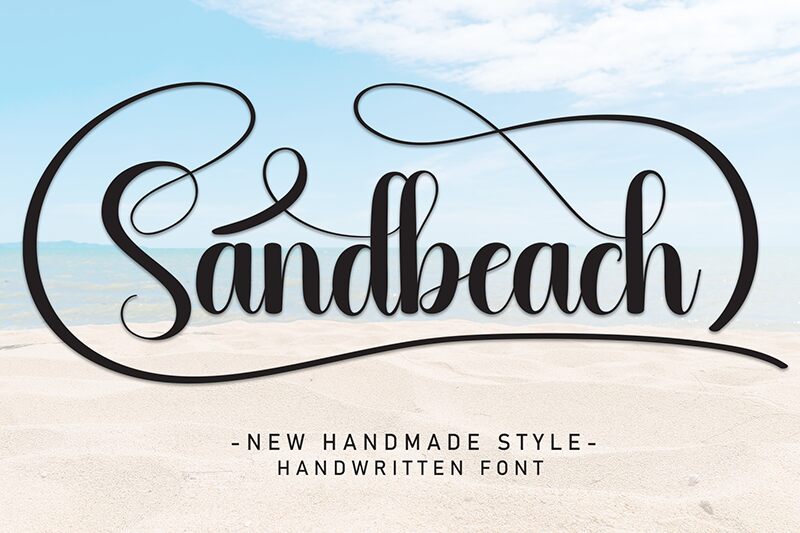
Sandbeach
Sandbeach font by Andi Moz is an elegant, flowing calligraphy font that embodies a modern, sophisticated style. Its graceful script is ideal for adding a touch of refinement and class to any design project.